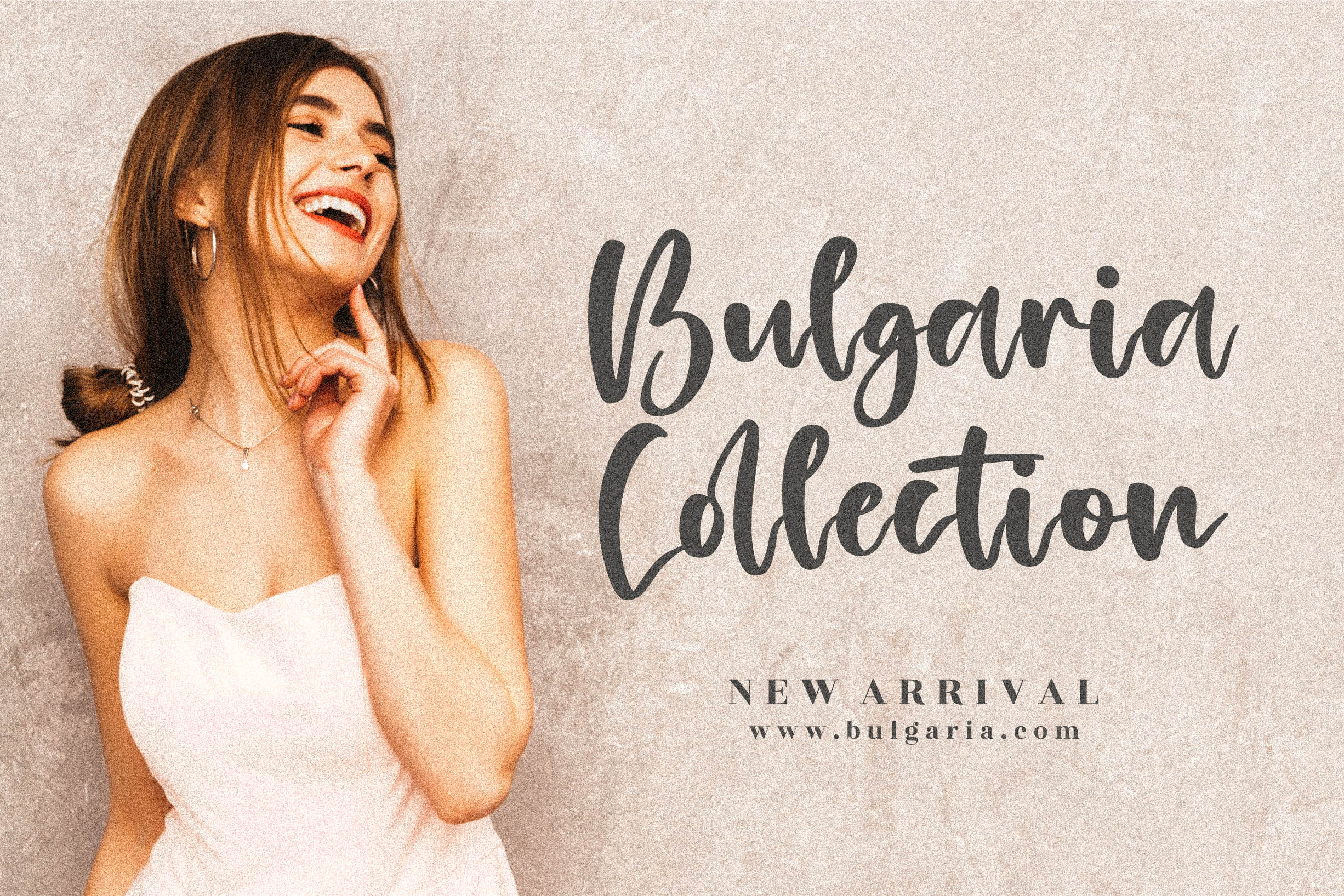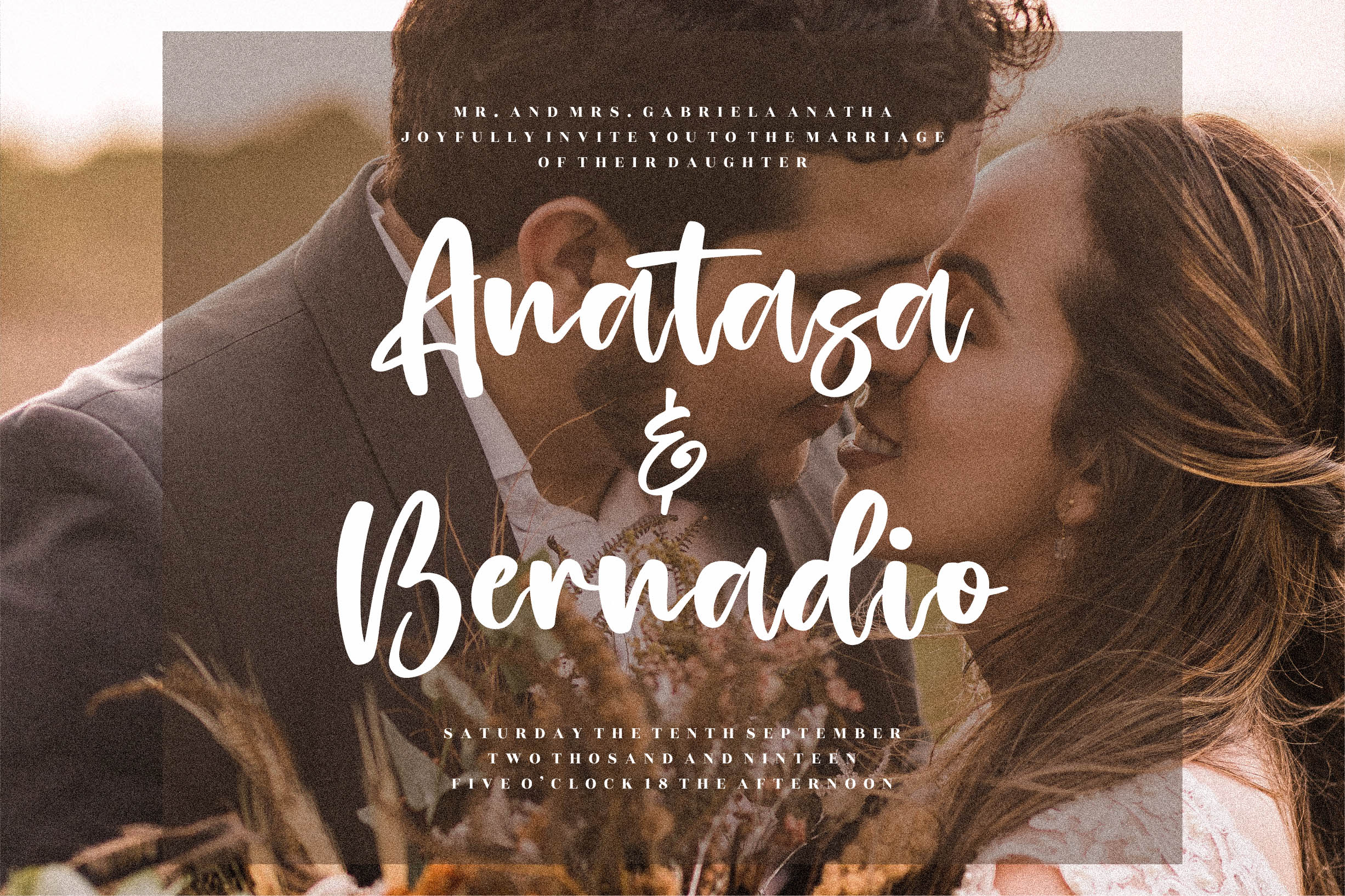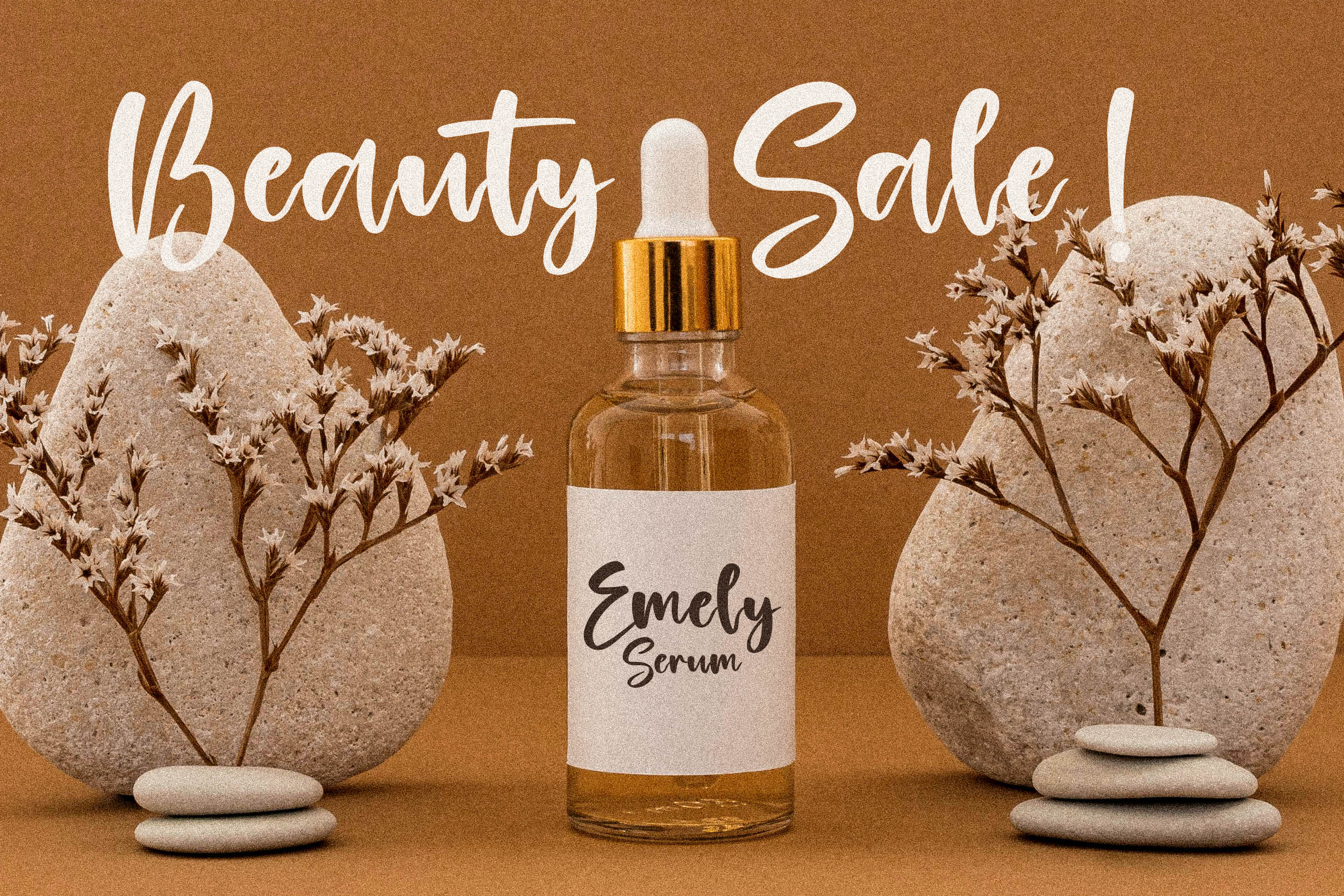
Blondeta Font
Blondeta Script Font
This is a handwritten font, suitable for any projects such as: logos, branding projects, homeware designs, product packaging, mugs, quotes, posters, shopping bags, t-shirts, book covers, name card, invitation cards, greeting cards, label, photography, watermark, special events, and all your other luxury projects that need a handwritten taste.